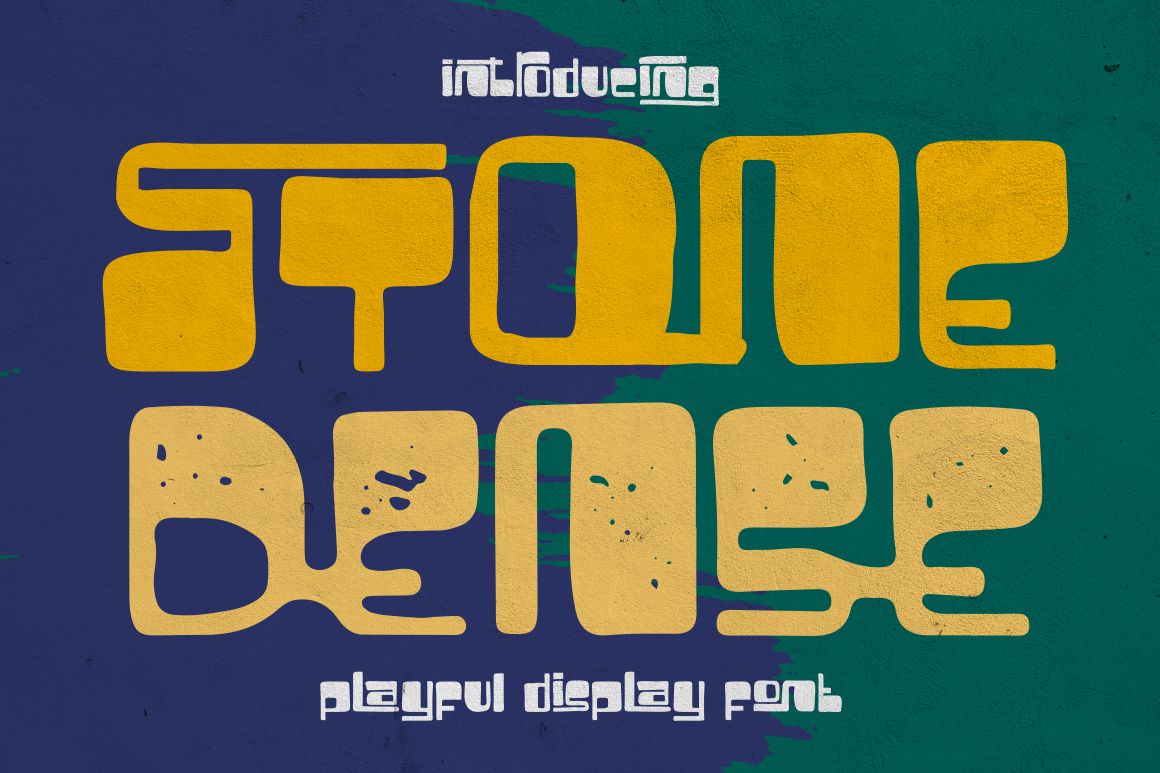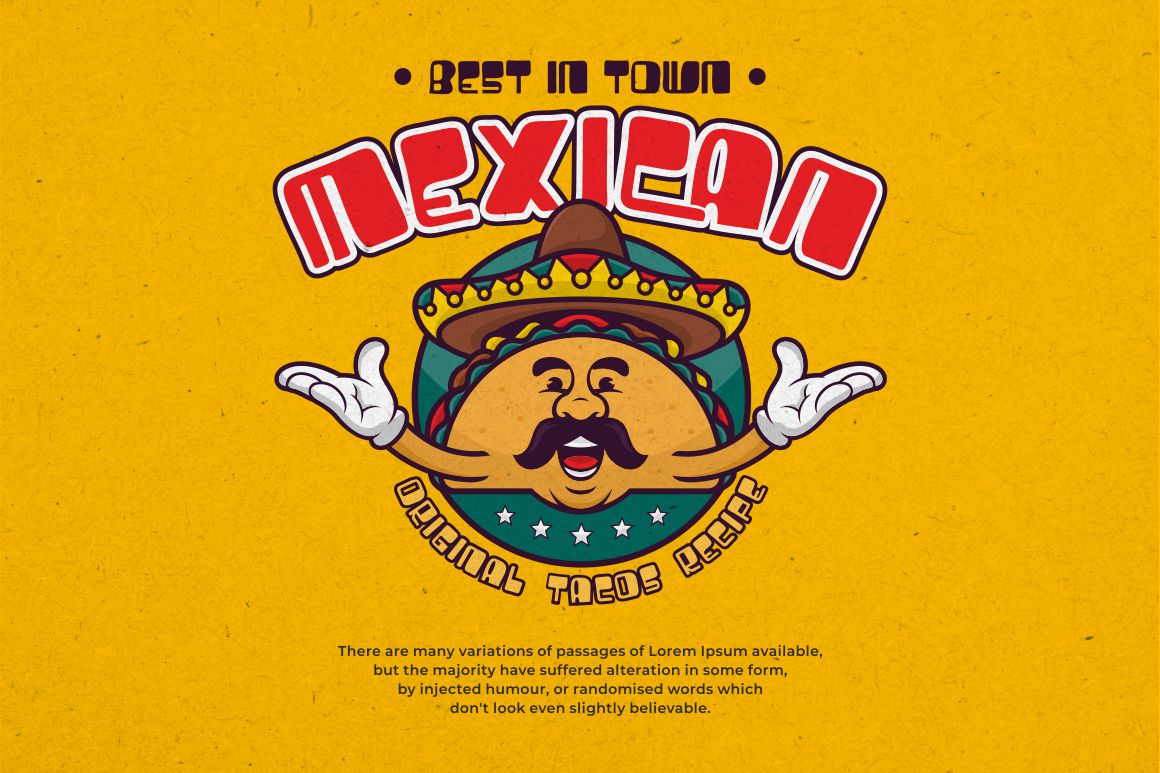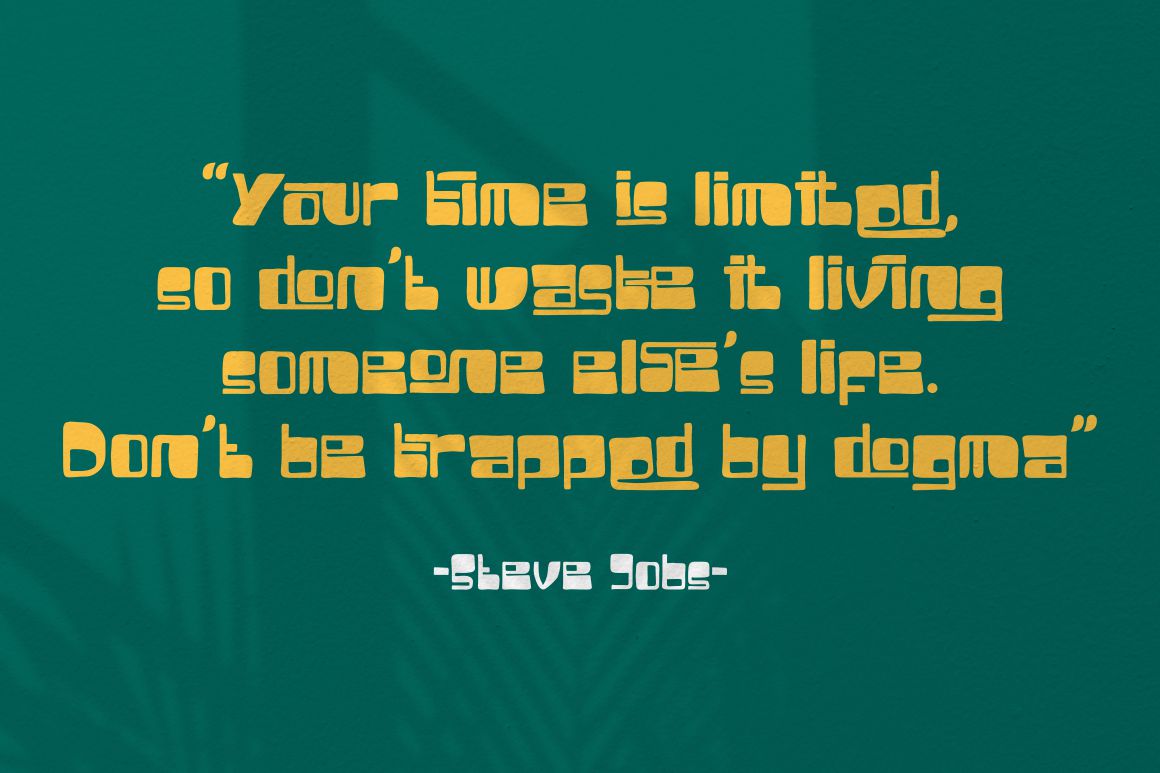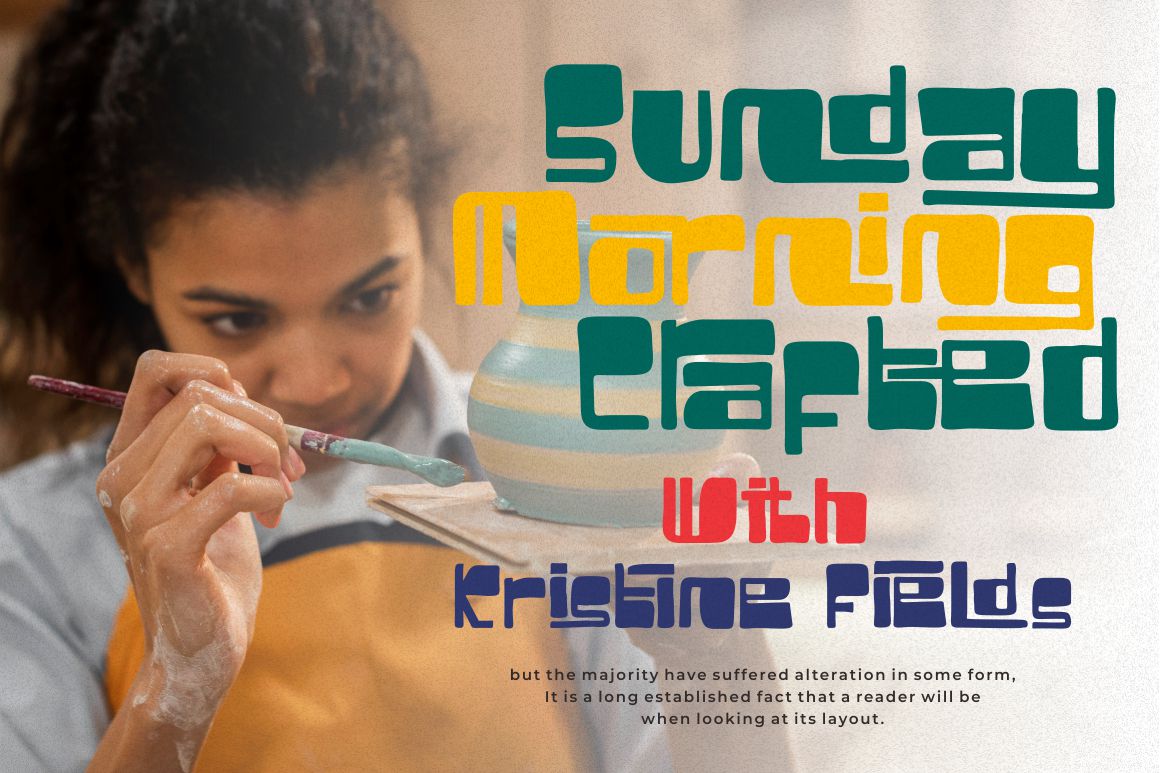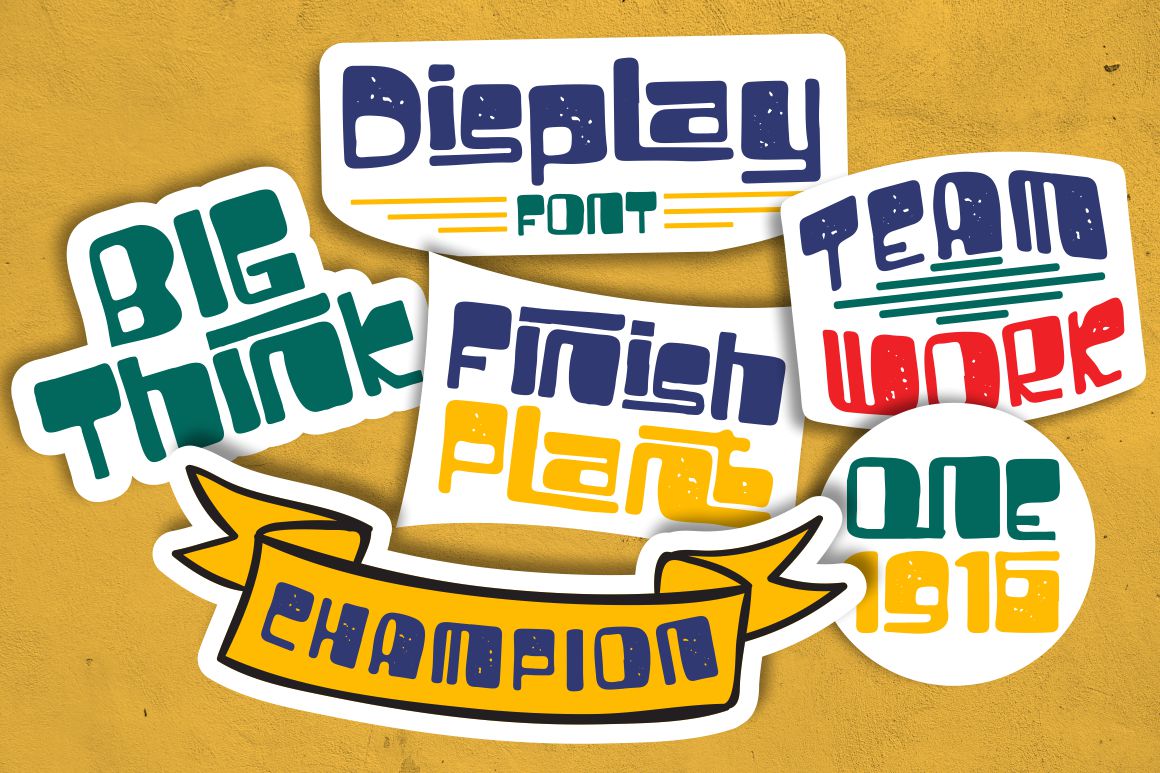
Stone Dense Playful Display Font is a unique and versatile font that can add a touch of playfulness and whimsy to any design project. This font features bold and chunky letters that are perfect for headlines, logos, and branding materials. With its playful curves and unusual letter shapes, Stone Dense is sure to grab attention and make a statement.
Whether you’re working on a poster, a website, or a social media graphic, Stone Dense is a great choice for adding some fun and personality to your design. The font’s playful style works particularly well for designs aimed at children or young adults, but it can also be used in more sophisticated and edgy designs.
Stone Dense Playful Display Font is a fun and versatile typeface that is sure to stand out in any design project. Its unique letter shapes and bold style make it a great choice for designers looking to add some whimsy and personality to their work. With its multiple styles and alternate characters, Stone Dense is a font that offers endless creative possibilities.